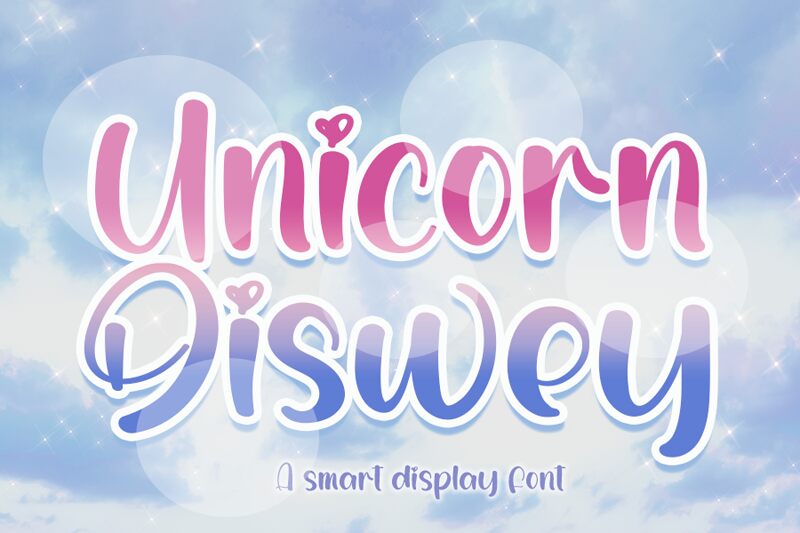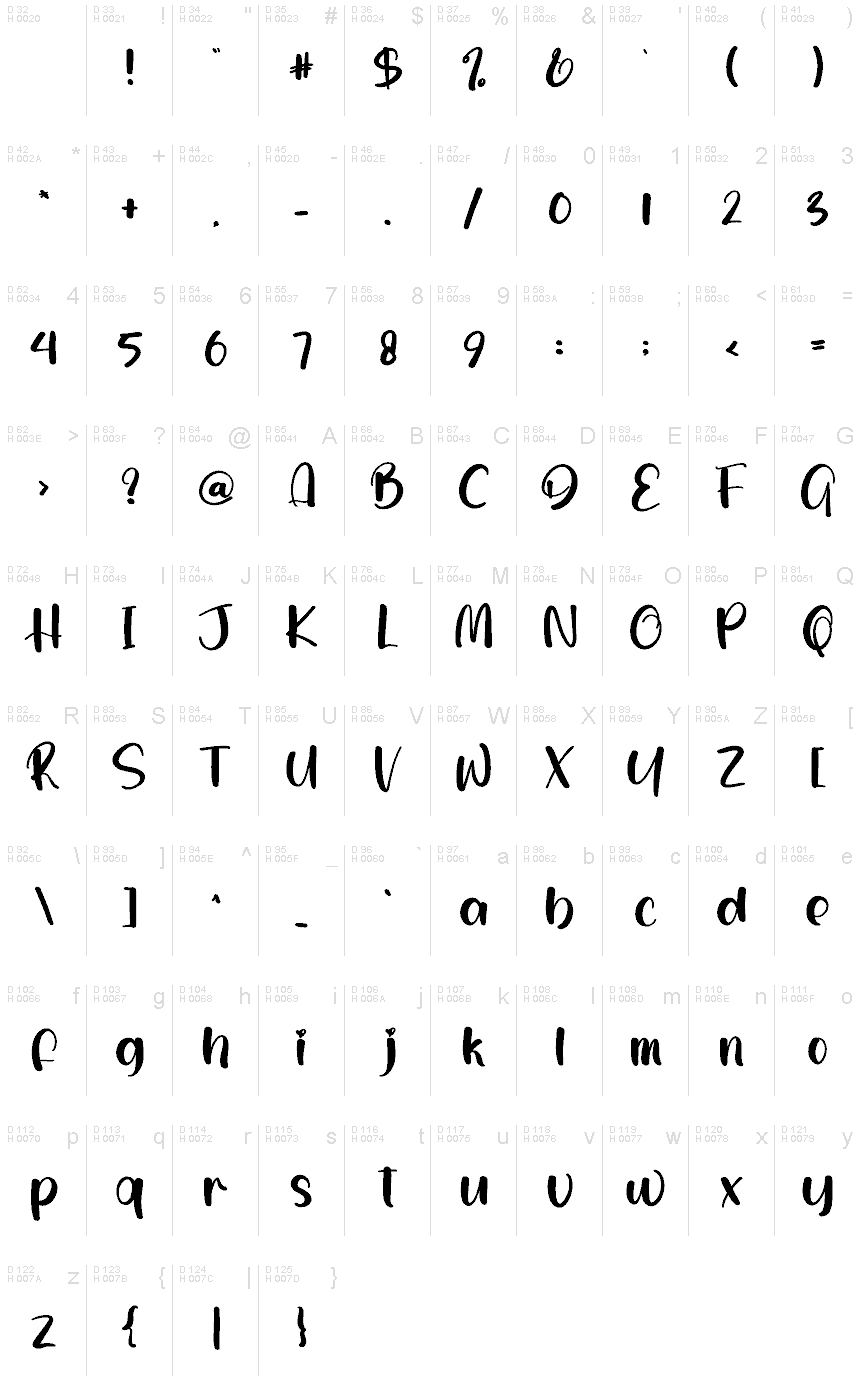
Unicorn Diswey
Unicorn Diswey font by creatype designer is a whimsical brush typeface that captures modern appeal with decorative and quirky characteristics. Youthful and imaginative, this free font is adorned with charming embellishments to take your designs to the next level; transform posters, paper crafts, stationery sets, and much more.
Playful creations using Unicorn Diswey can include children’s books, school projects, toys’ packaging design, greeting cards for occasions such as birthdays or baby showers. It also fits effortlessly in comic strips design, on Tumblr blogs for digital use or prints use on T-shirts for kids or adults who are in touch with their youthful side.